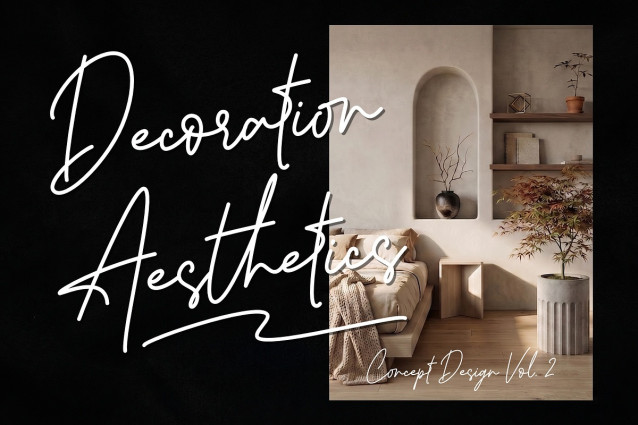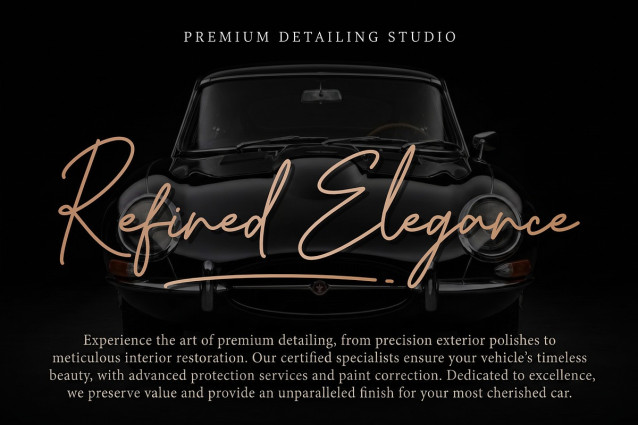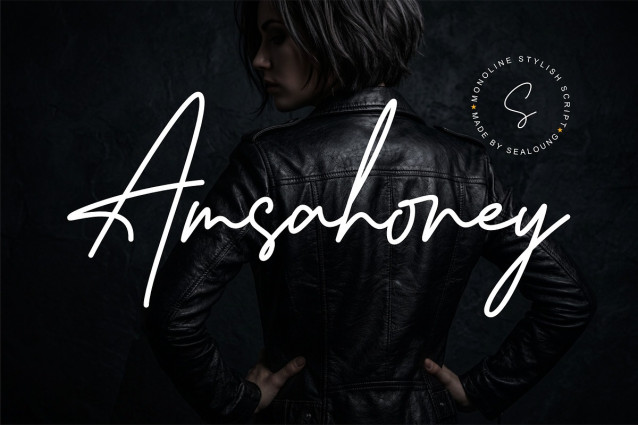
Amsahoney Font
Amsahoney Font is a modern and elegant handwritten font designed with smooth flowing strokes and a natural signature style. Its graceful curves and refined character bring a luxurious, personal, and sophisticated touch to every design.
Amsahoney Signature Script is perfectly suited for branding, logos, wedding invitations, social media content, advertisements, product packaging, labels, photography watermarks, stationery, and any creative project that needs a stylish handwritten feel.